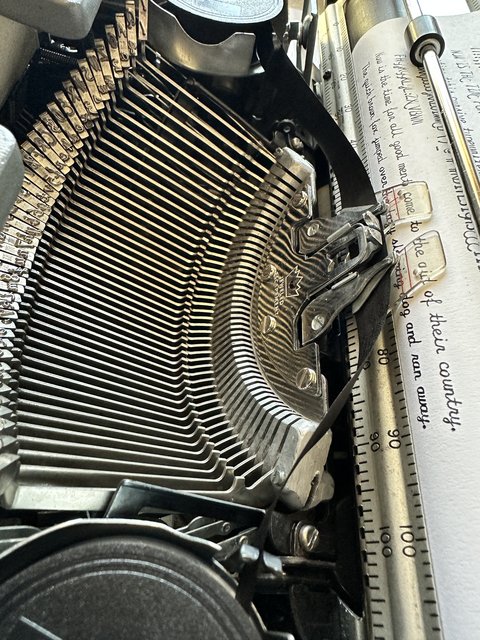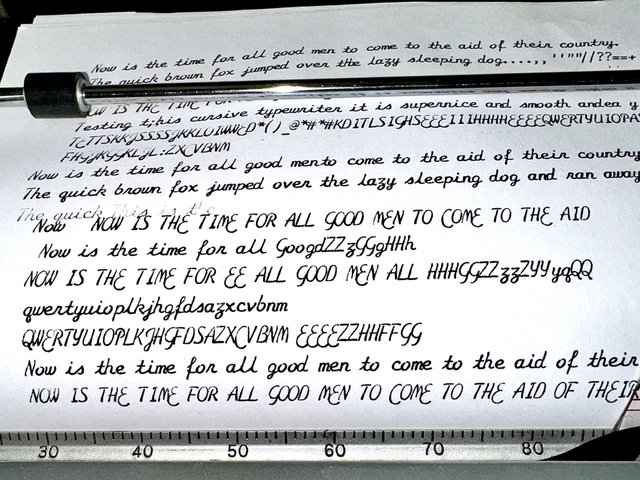
Thanks to Pete, I got this SCM Smith Corona Electra 120 in Cursive for less than $20.
After minor repairs and stripdown, refurb, etc, it runs great. Action is very tight so it had little use.
New cog "V" belts, sub metal clutch for the plastic one, elecrical repairs, etc.
There are metal drive gears on the ribbon spools instead of plastic. Great.
Glad you got a good Cursive...and I am sort of glad it did not turn out to be an Italics machine.
I got a 1-colour ribbon from Ribbons Unlimited...in a blue-purple colour (nylon fabric, though).
On ivory coloured paper, the blue/purple can look like a letter is hand written.
I've got a machine with Artistic Script like this one. Using it puts a smile on my face every time.
I notice in the photos that the top of the caps look a little light. Have you done a motion adjustment on it? Seems like the segment could come a touch lower relative to the platen. Or maybe it's just a tired ribbon.
"Motion Adjustment"?
Is that in the SCM series 6 electric manual?
I did notice that, also DW. Not sure how to adjust that.
Tips?
Congratulations! A good cursive/script machine amazes me when each character looks tied together. Enjoy some mechanical handwriting.
Adjustments for "shift", "motion", and "on-foot" all go together. I think technically, you're needing to do an "on-foot" adjustment to get the capital impressions even, then "motion" adjustment to align the lowercase with the new position of the upper-case.
The whole thing is about getting the point that the letter strikes the platen to be perfectly centered vertically so you get a good impression on the top and bottom of the letter. For typefaces like Artistic Script, which are very tall from the lowest descender of the lowercase to the highest capital, it's even more to get this right.
Generally, typewriters have a set screw (or two) that sets the position of the segment relative to the carriage for when the typewriter is resting in the lowercase setting, and another set screw (or two) for where it lands when you press shift.
Looking at Ted Munk's Smith Corona 5 and 6 Series Typewriter Repair Shop Manual, the "Model 6LT Shift Adjustments" section begins on page 5. It looks like these have a single screw for uppercase and another for lowercase:
Looks like you want to adjust screw 7 to set the capitals ("on-foot"), and screw 20 for the lowercase ("motion").
To adjust the capitals, it's common to type a few capital H's and then look at the top and bottom serifs to see which is heavier (H is a handy character because it's vertically symmetrical). Then, you adjust the captials screw until it's even on top and bottom. Next type a pattern of HhHhHh to adjust the lowercase to match the new H position. This pattern is handy because h should exactly match H at the top and bottom, and the serifs of each align nicely.
But, for Artistic Script, it's a little tricker because you don't have serifs like that, and the typeface is quite tall (I have a Thai typewriter that was very tricky to find the right letters to use).
For Artistic Script, I'd use a capital Z to get started, but throw in a couple uppercase E's because they descend below the baseline in this typeface. (Similarly, on my Thai typewriter, I had to find a pair of letters that showed the highest and lowest extremes in the shifted position, then find a pair of letters in the unshifted position).
Once you get a position that Z and E work well in, you need to get the lowercase to align. That's tricky because there's no letters in the Artistic Script lowercase that have flat horizontal lines you could line up with the bottom of the Z. I think the lowercase w is the closest proxy as the two lower curves imply a line.
(If you want to get really picky, you want the curves to extend just a touch beyond the straight lines to make it overall seem perfectly lined up. This "overshoot", based on the Müller-Lyer illusion, is built into all typefaces. Typeface designer Tobias Frere-Jones has a great article on it).
Now if I can ever get my hands on a blackletter typewriter someday...
Oops: the page reference to Ted Munk's typewriter bible should be 53, not 5.
Couple of photos of my cursive Electra 120...to give you some ball-park idea about the number of visible screw threads above the locking nuts.
Of course, each machine will have its own sweet-spots.
After your detailed pictures and terrific explanation (far better than the printed manual!) , it was an easy quick fix.